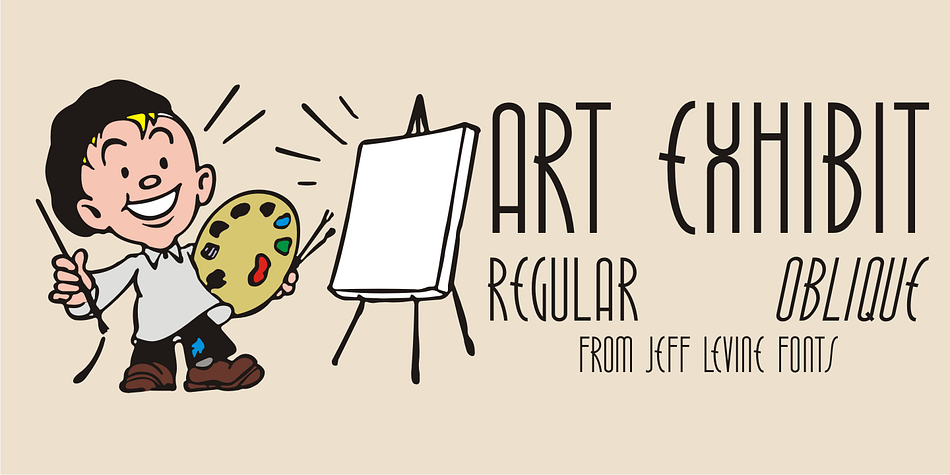
Art Exhibit JNL is a art deco font family. This typeface has two styles and was published by Jeff Levine Fonts.
In the 1930s the WPA (Works Progress Administration) was involved with getting a number of Americans back to work during the Great Depression. One faction of the WPA’s efforts was the Federal Art Project.
Thin, condensed hand lettering on a poster for an Art Exhibition at the New Bedford Free Public Library is the inspiration for Art Exhibit JNL.